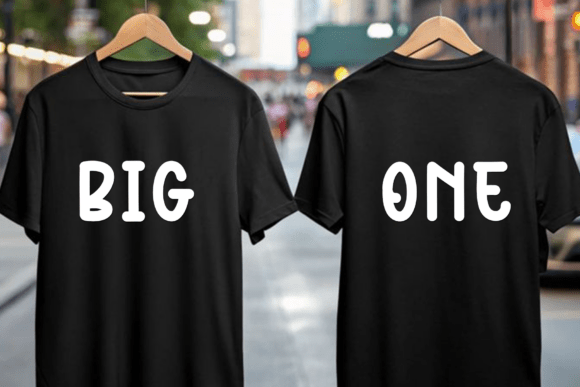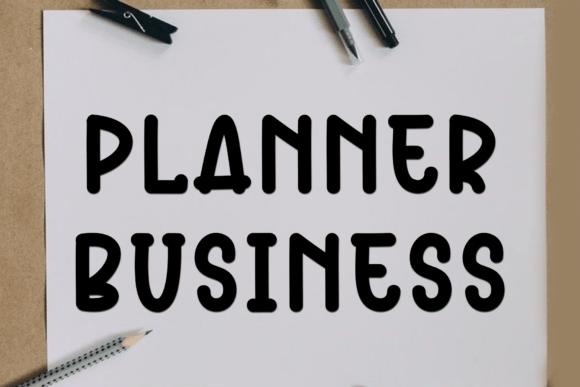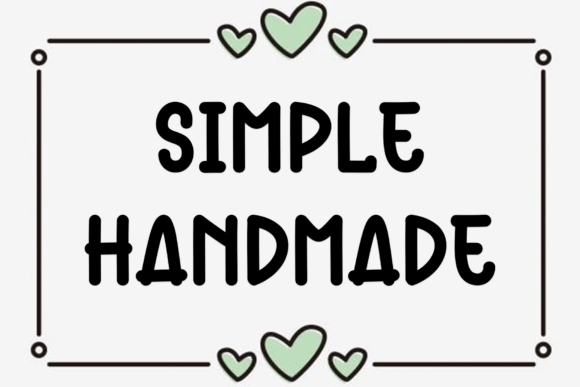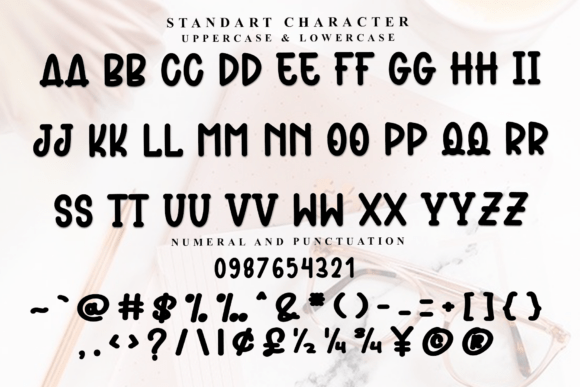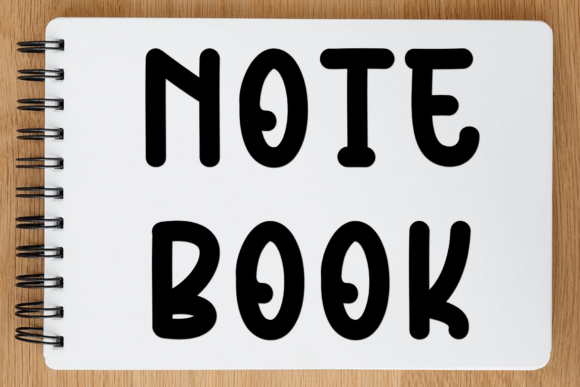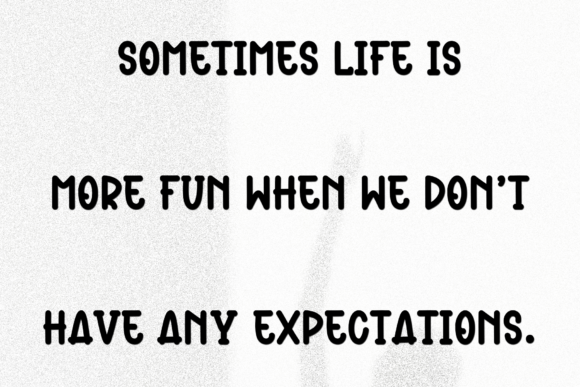
The Magic of the Holiday Season in Font Form
It’s that time of the year when creativity knows no bounds. You’re rummaging through your craft supplies, sipping hot cocoa, and trying to come up with the perfect gift tags for your loved ones. You’re in a festive mood, and you want your typography to shine as bright as the twinkling lights on your Christmas tree.
This is where the Groovy Font comes in – a festive and merry typeface that captures the spirit of the holiday season. With its decorative elements and whimsical flair, it adds a touch of enchantment to your designs, making it perfect for greeting cards, gift tags, and holiday-themed projects. Whether you’re a seasoned designer or a crafting enthusiast, this font is a valuable addition to your toolkit, offering a cheerful and nostalgic ambiance to your words.
Groovy Font Key Features
- Font Family: Groovy Font is a sans-serif typeface, designed for modern and trendy designs.
- Unique Characteristics: Groovy Font features a distinctive rounded edge and a subtle flair, giving it a modern and friendly feel.
Groovy Font Review
Overall, I think Groovy Font has some great features, but it’s not without its limitations. Let’s dive in.
- Unique, eye-catching style that’s perfect for creative projects
- Wide range of font weights and sizes to choose from
- Supports various font styles, including italic and bold
- Works well on both web and print platforms
- Can be difficult to read in smaller font sizes
- May not be suitable for formal or professional projects
- Lacks consistency in its spacing and letterforms
Overall, I’d give Groovy Font 3.5 out of 5 stars. It’s a fun, quirky font that’s perfect for creative projects, but it’s not without its limitations. If you’re looking for a font that’s going to make a statement, Groovy Font might be the way to go. However, if you need a font for a more formal project, you might want to consider something else.
The Groovy Font is perfect for creating eye-catching headings, titles, and slogans. Use it in your social media graphics, advertising materials, and branding elements to add a touch of playfulness and whimsy.
For the best results, pair the Groovy Font with bold and bright colors, and experiment with different font sizes and styles to create a visually appealing design.
Alternatives to Groovy Font for Designers
Great Vibes is a stylish and elegant script font. It’s perfect for adding a touch of sophistication to headings and titles. When to use: For formal and creative projects that require a high-end feel.
Comparison: Great Vibes has a more refined and polished look compared to Groovy Font, making it suitable for a wider range of designs. While Groovy Font is more playful, Great Vibes is more refined and suitable for formal projects.
2. Dancing Script
Dancing Script is a beautiful and elegant script font that’s perfect for adding a touch of whimsy to designs. When to use: For creative and playful projects that require a lively feel.
Comparison: Dancing Script has a more fluid and dynamic feel compared to Groovy Font, making it suitable for projects that require a sense of movement and energy. While Groovy Font is more straightforward, Dancing Script is more expressive and suitable for creative projects.
Carolyna Pro is a modern and elegant script font that’s perfect for adding a touch of sophistication to designs. When to use: For formal and creative projects that require a high-end feel.
Comparison: Carolyna Pro has a more refined and polished look compared to Groovy Font, making it suitable for a wider range of designs. While Groovy Font is more playful, Carolyna Pro is more refined and suitable for formal projects.
Lobster is a fun and playful script font that’s perfect for adding a touch of whimsy to designs. When to use: For creative and playful projects that require a lively feel.